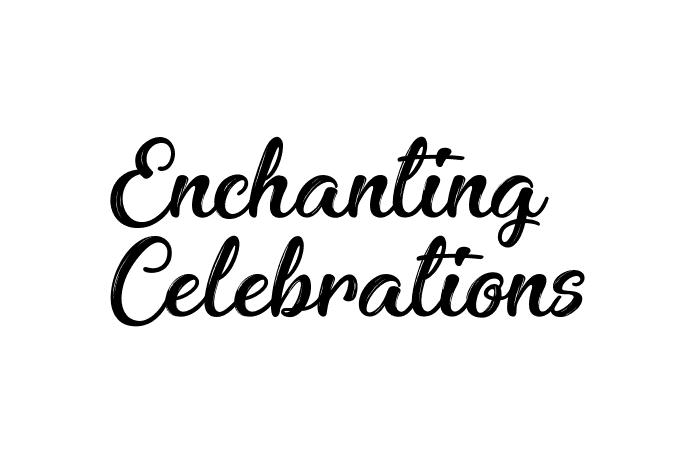
marilatte script Font
marilatte script Font is a classic Calligraphy font but has modern elements in it, so it is very suitable for wedding media, book covers, greeting cards, logos, branding, business cards, and certificates, even for any design work that requires a Calligraphy font, formal, or luxurious impression.
Font Family Marilatte
Font Style Script
Typeface classification Calligraphy,Script